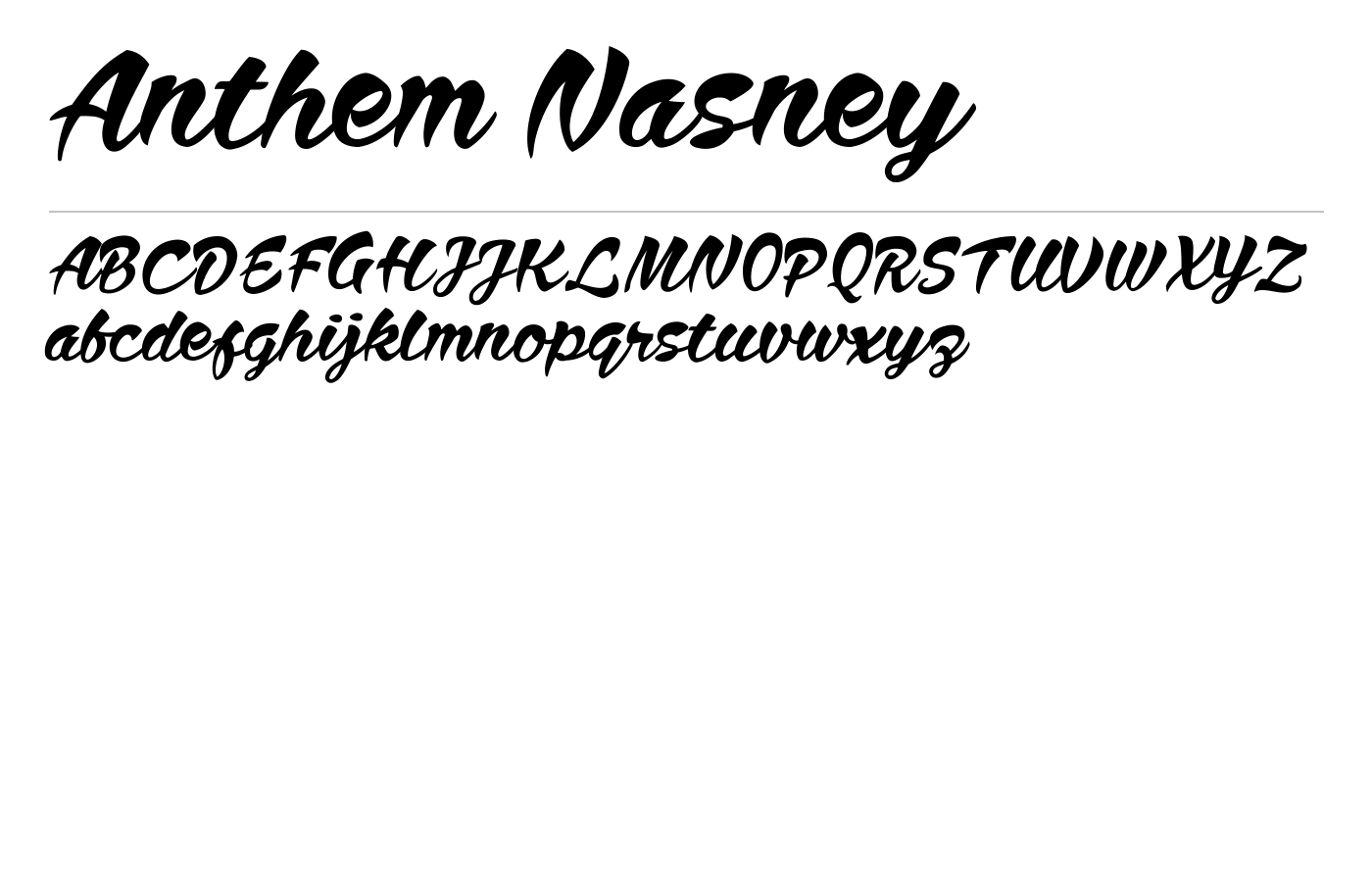
Anthem Nasney is a bold and lively script font with smooth, flowing strokes that give it an energetic yet friendly feel. Its slightly condensed letterforms and consistent weight make it ideal for eye-catching headlines, branding, and packaging where a spirited, modern handwritten touch is desired. This font works well for creative projects that want to convey personality and approachability without sacrificing readability.
Anthem Nasney Font